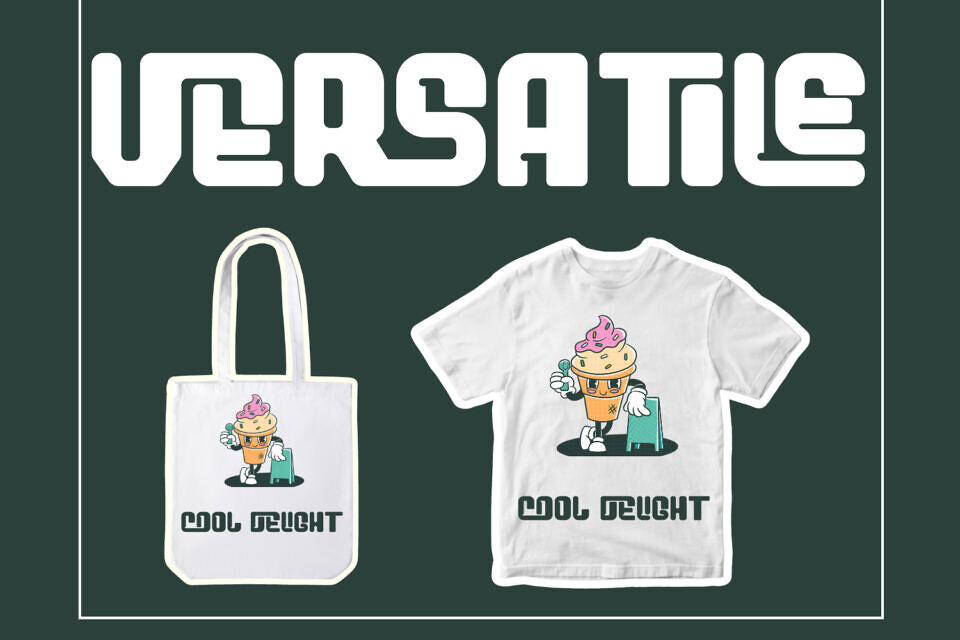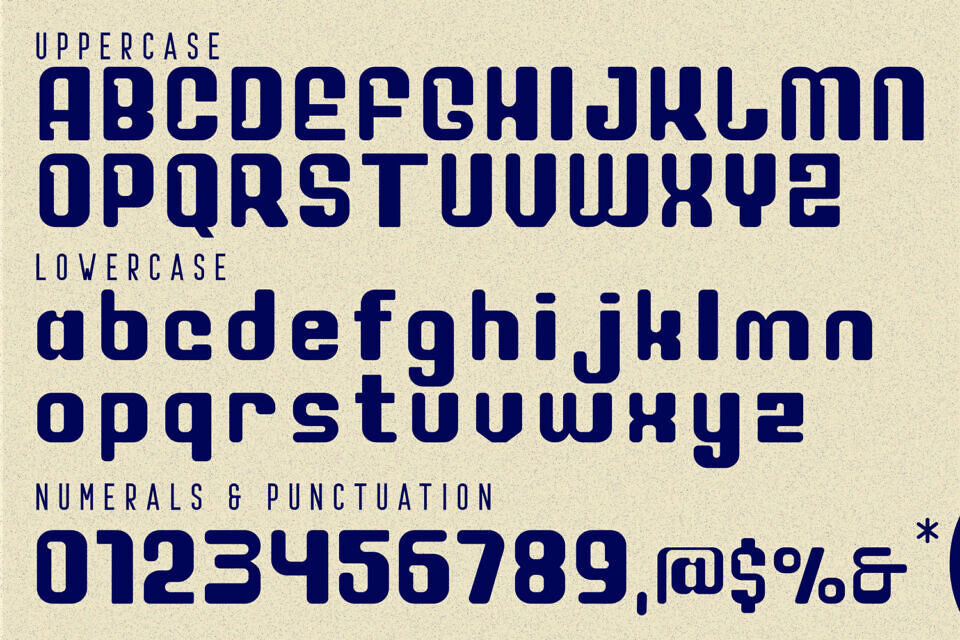
GREATER RELIANCE is a bold retro modular display font designed with smooth rounded corners, geometric construction, and a distinctive blocky rhythm. Its characters are crafted from sturdy, monolithic shapes combined with soft curves, creating an eye-catching balance between vintage charm and modern aesthetics.
The unique cut-ins, rounded terminals, and modular structure give every word a striking visual identity, making it perfect for standout headlines, retro posters, creative branding, album covers, tech-inspired graphics, and bold typographic compositions. With its strong presence and nostalgic futuristic appeal, GREATER RELIANCE brings personality and impact to any design project.